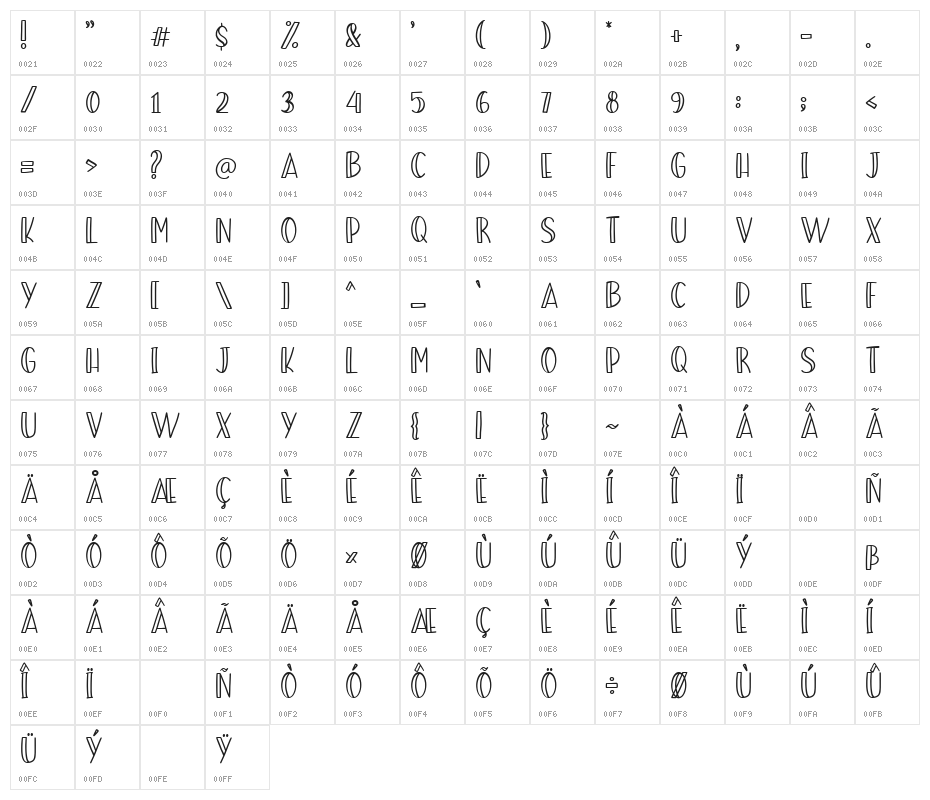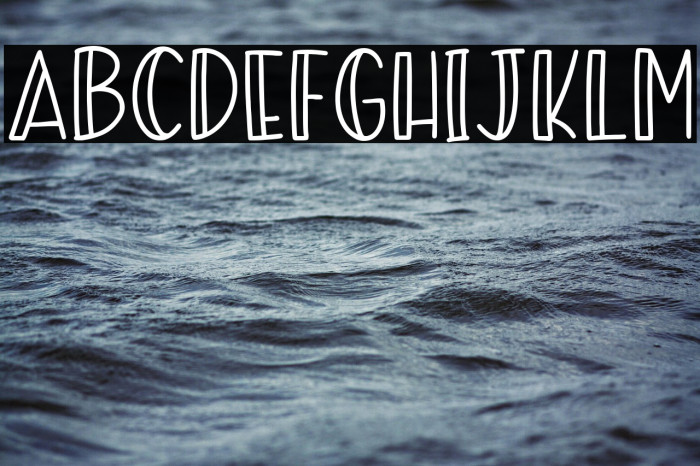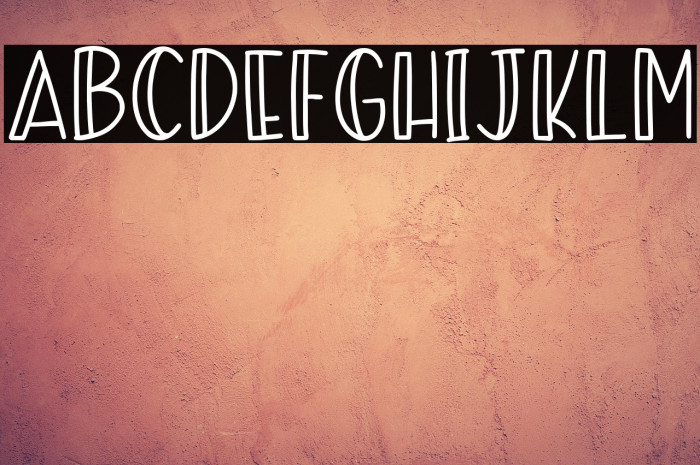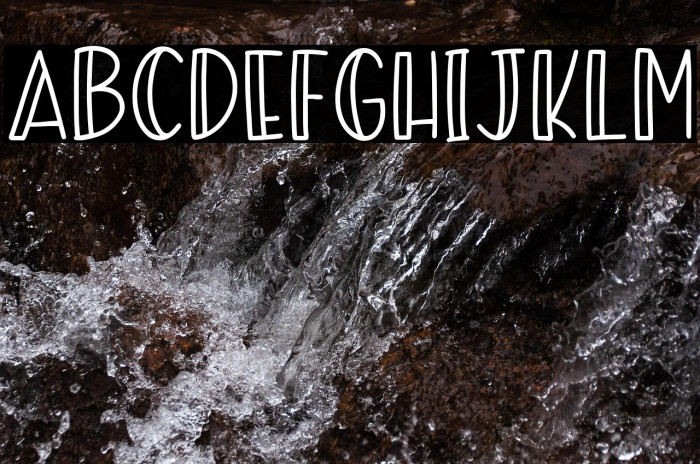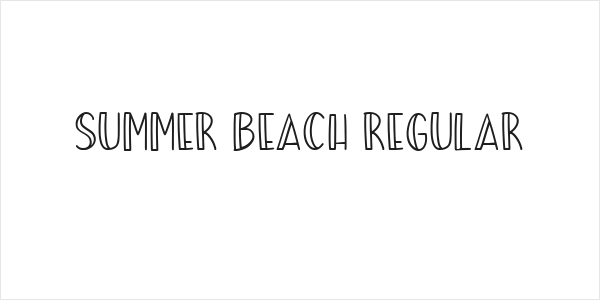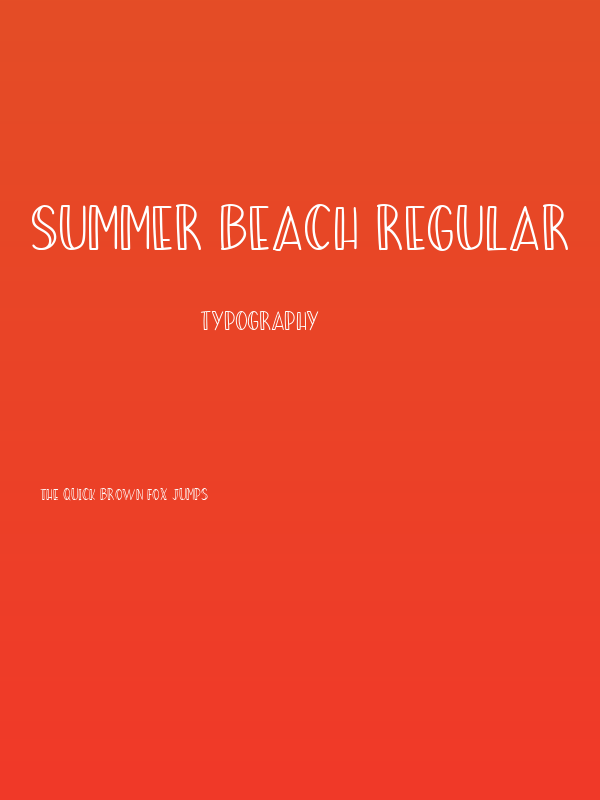
Summer Beach Regular Font
Summer Beach Regular Description
This font features a playful and casual style, characterized by its hand-drawn appearance and slightly irregular strokes. The letters have a whimsical, beach-inspired vibe, with a mix of straight and curved lines that give it a relaxed and informal feel. The uppercase and lowercase letters maintain a consistent style, with a slight tilt that adds to the overall charm. The numerals and special characters follow the same design principles, ensuring a cohesive look across all elements. This font is perfect for projects that aim to convey a sense of fun and creativity.
| Proposed Projects | Ideal for summer-themed posters, children's book covers, casual invitations, and playful branding. |